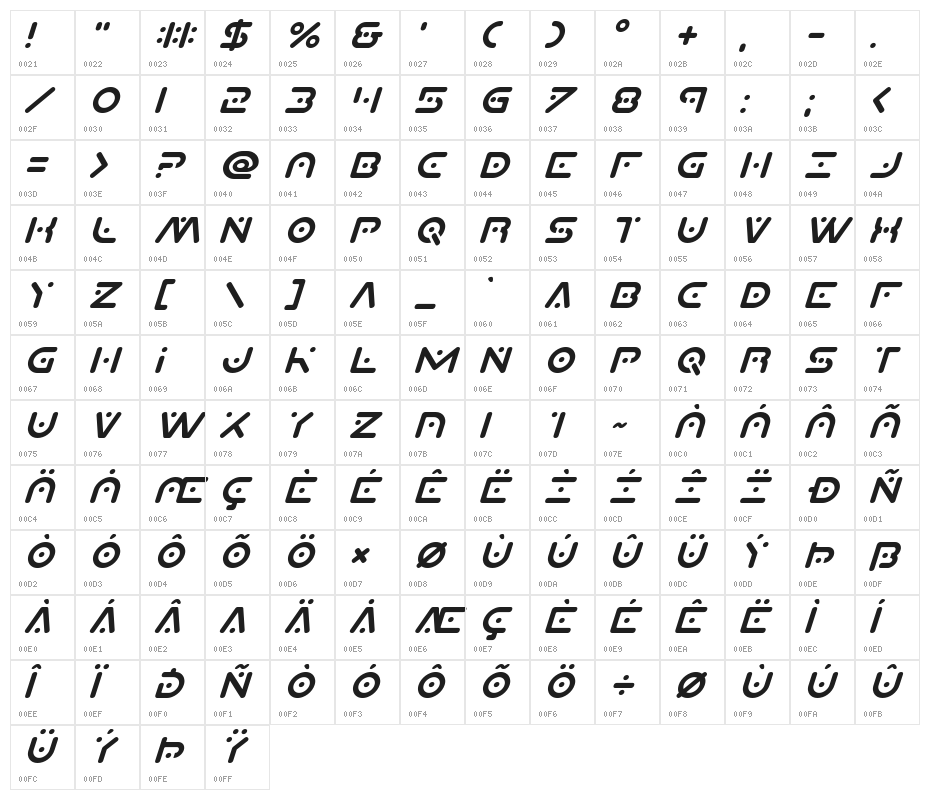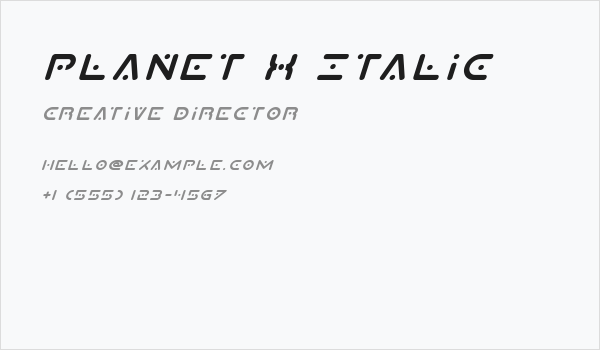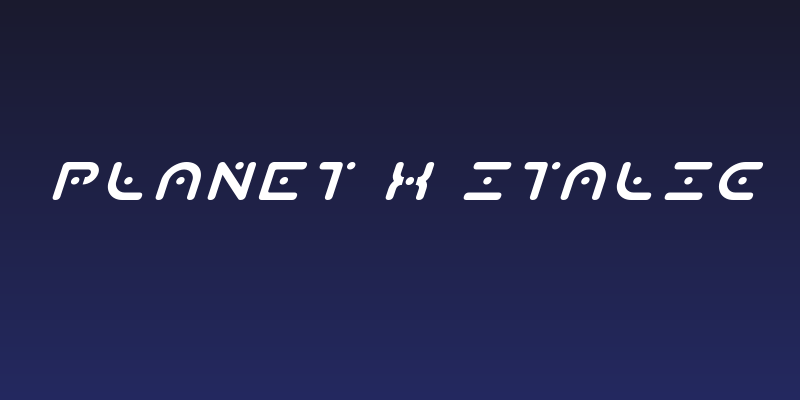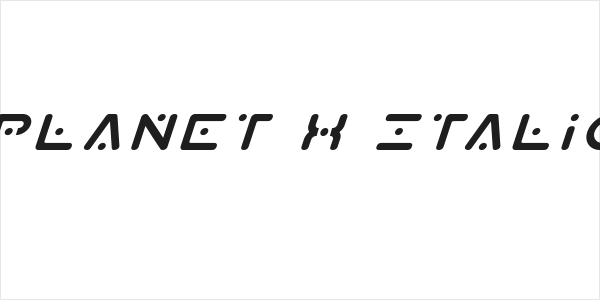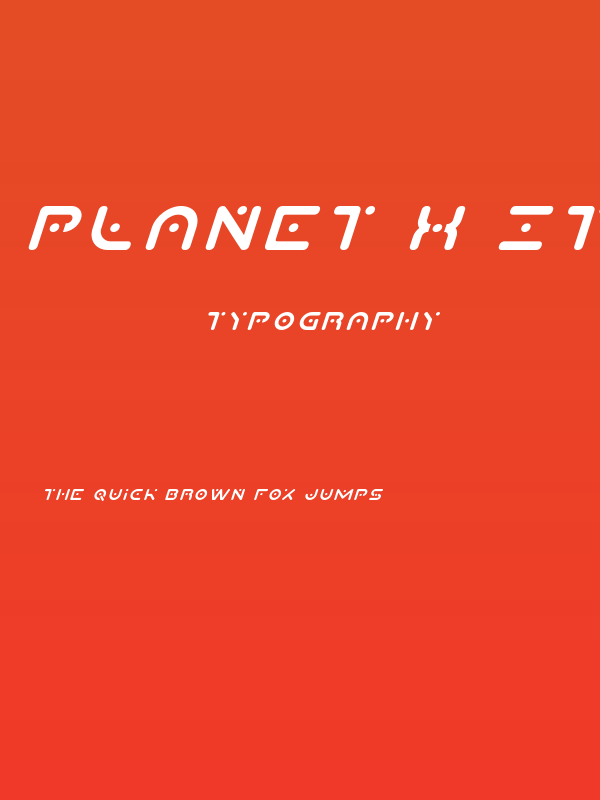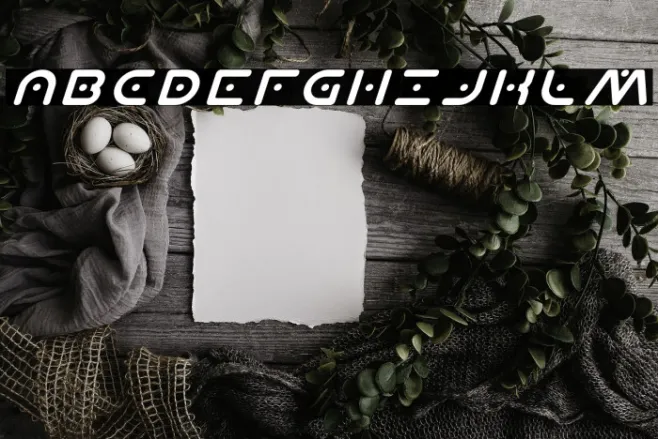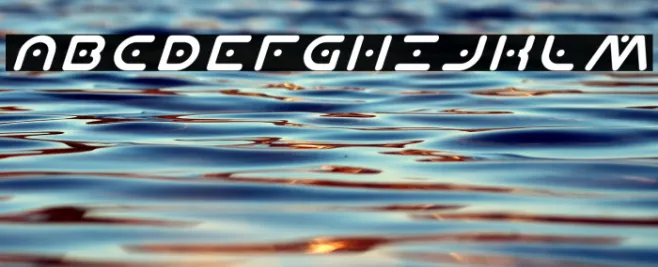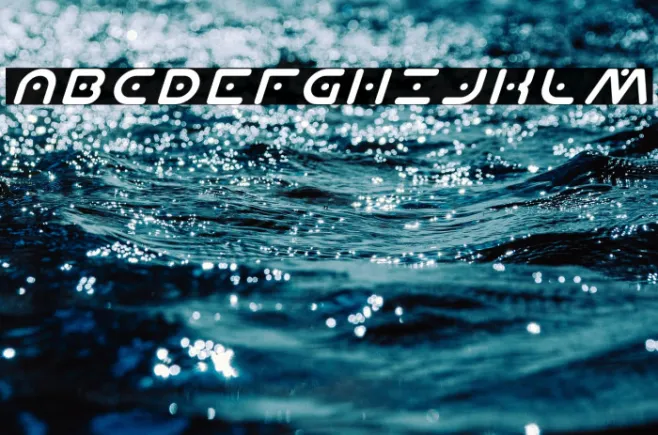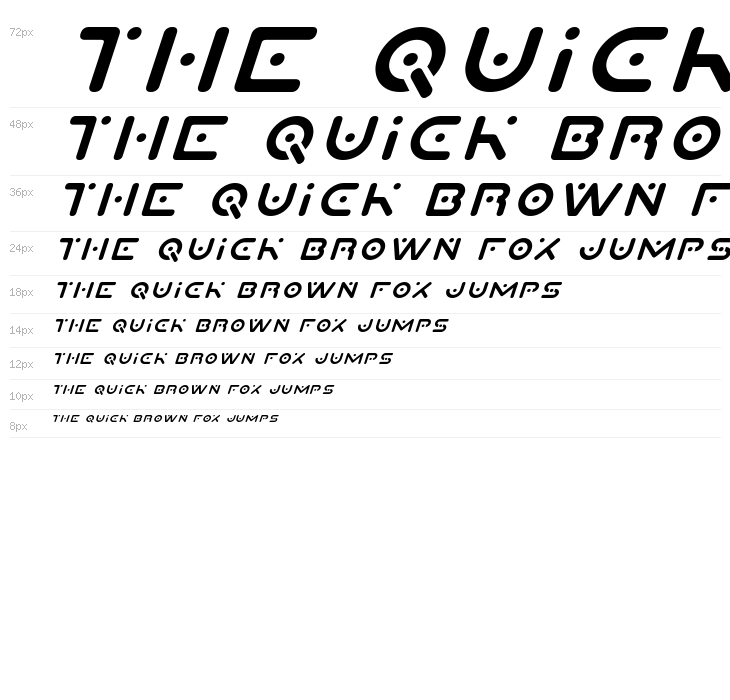
Planet X Italic Font
Planet X Italic Description
This font features a futuristic and sleek design with a distinct italic slant, giving it a dynamic and forward-moving appearance. The characters are bold and rounded, with unique cutouts and geometric shapes that add a modern touch. The uppercase and lowercase letters maintain a consistent style, with smooth curves and sharp angles that create a sense of motion. Numbers and special characters are designed to match the overall aesthetic, making this font suitable for a variety of creative applications. The design is both eye-catching and legible, making it ideal for projects that require a modern and innovative look.
| Proposed Projects | Ideal for sci-fi themed designs, technology branding, video game titles, and modern advertising. |